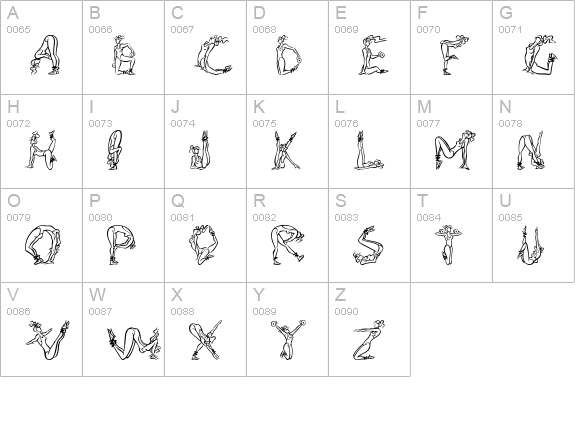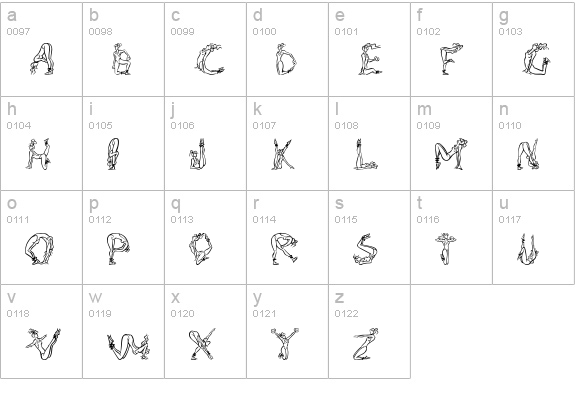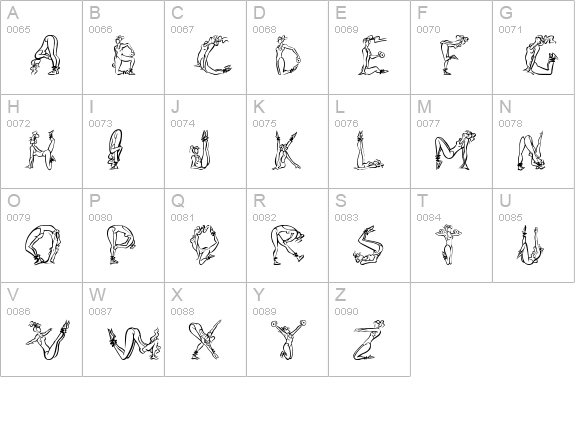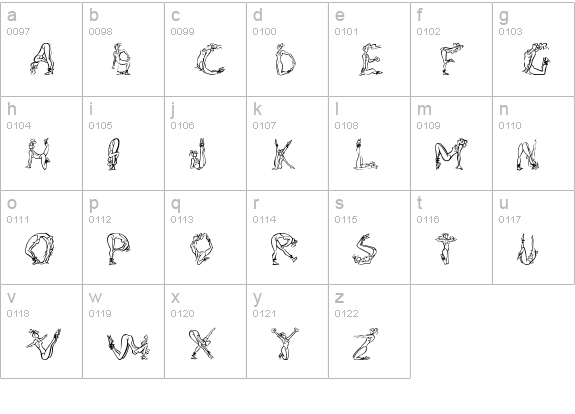
AlphaFitness Font Details
AlphaFitness font is a modern and sleek typeface designed specifically for fitness-related projects. This font exudes energy and strength, making it perfect for gym logos, workout apparel, and fitness websites. With its bold and dynamic style, AlphaFitness is sure to make a powerful impact on any design. The best part? AlphaFitness is available for free download at FontsMarket.com. Take advantage of this opportunity to add a touch of athleticism and vigor to your projects without breaking the bank. Whether you're a fitness enthusiast, a personal trainer, or a gym owner, AlphaFitness font is the perfect choice to convey your dedication to health and wellness. Download it now and see the difference it can make in your designs!